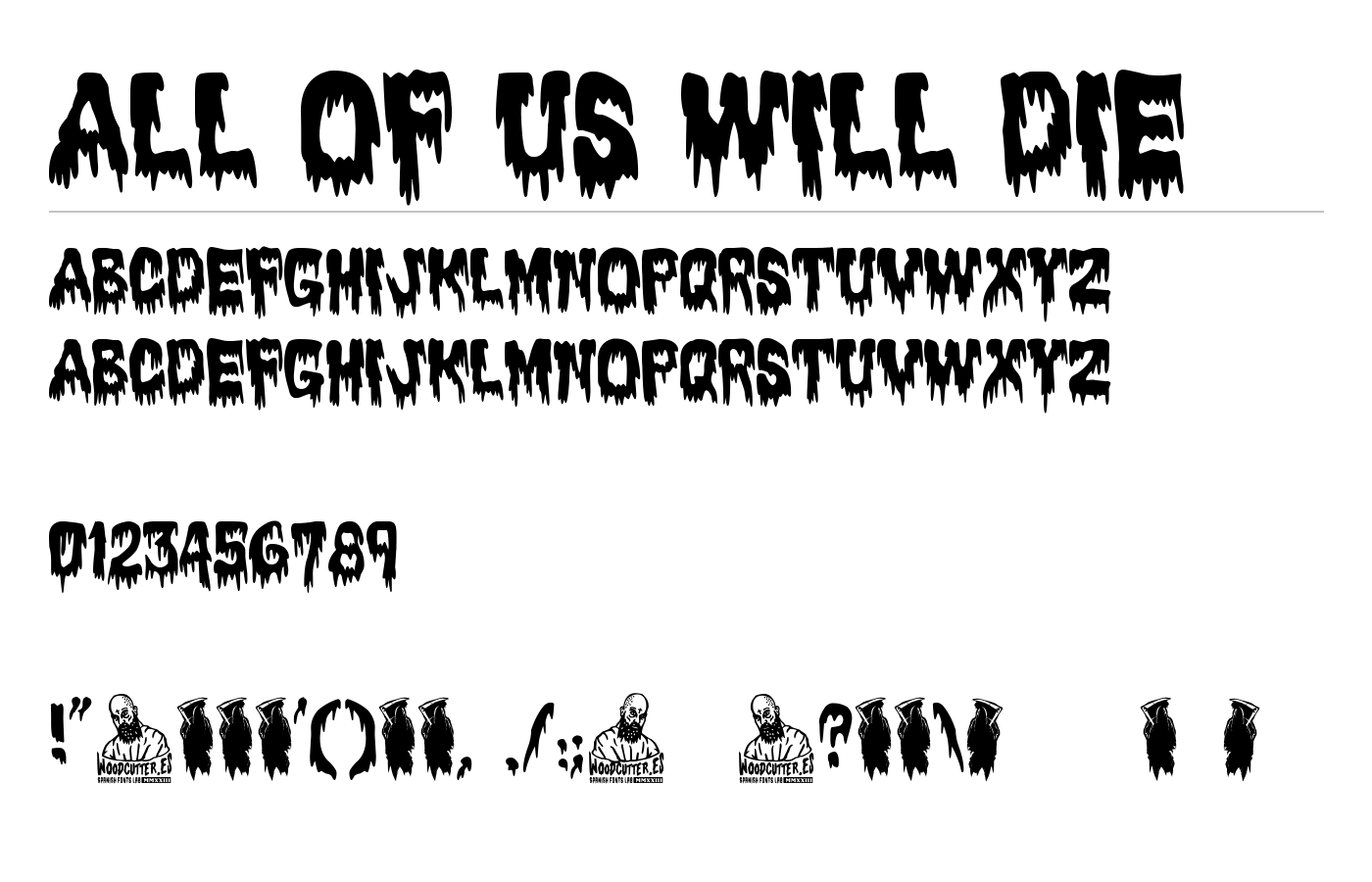
The "All of us will die" font is a bold, decorative display typeface with a dripping, horror-inspired design that evokes a spooky and eerie atmosphere. Its heavy weight and irregular, melting shapes make it ideal for eye-catching headlines, Halloween themes, or edgy branding that seeks to convey a sense of fear or the macabre. This font works best in creative, themed projects where strong visual impact and mood-setting are key.